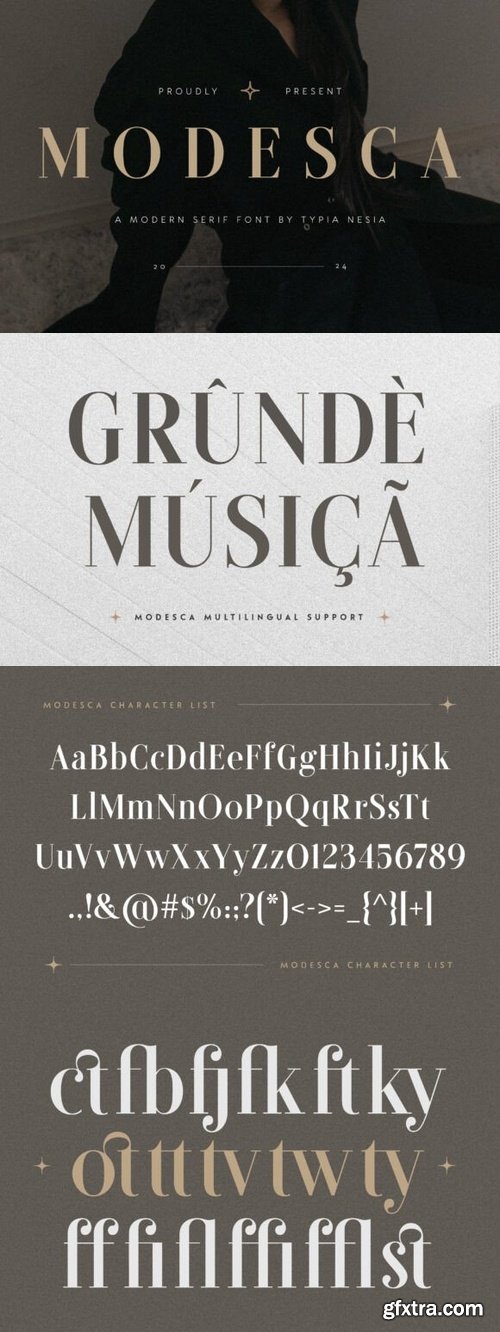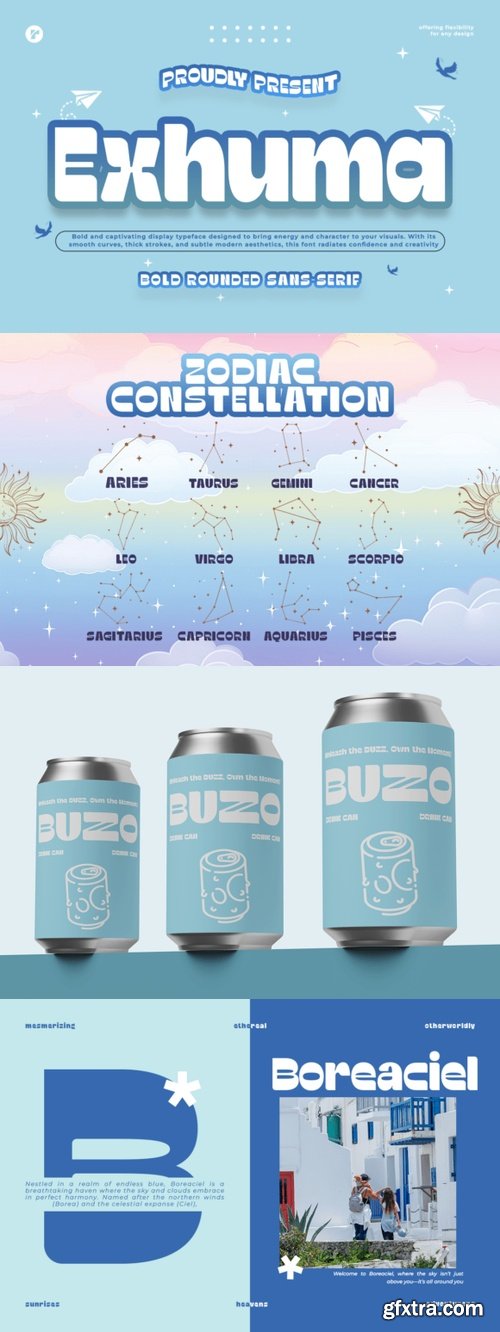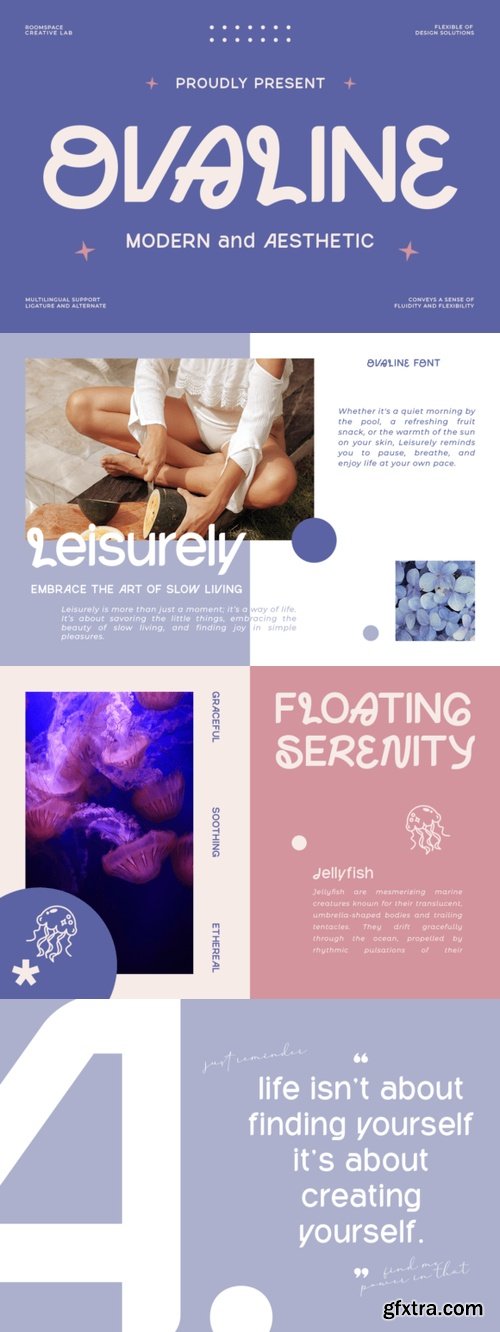
- Modesca is a Modern Luxury Serif Font designed to bring elegance and luxury to your projects. With its sleek lines and timeless elegance, Modesca is perfect for conveying a sense of luxury and modernity in any design, such as luxury branding, editorial layouts, high-end packaging, logo design, wedding invitations, chic social media graphics, advertising campaigns, posters, and anymore. Comes with a complete set of uppercase and lowercase letters, punctuation, numerals, and features elegant ligatures and customizable alternates to enhance creativity. With multilingual support, Modesca caters to global audiences, making it perfect for international projects. Designed for creatives and professionals who seek a luxury serif font with a modern edge, Modesca delivers unmatched elegance and functionality. It’s the perfect choice for designs that need to make a modern and luxurious statement.
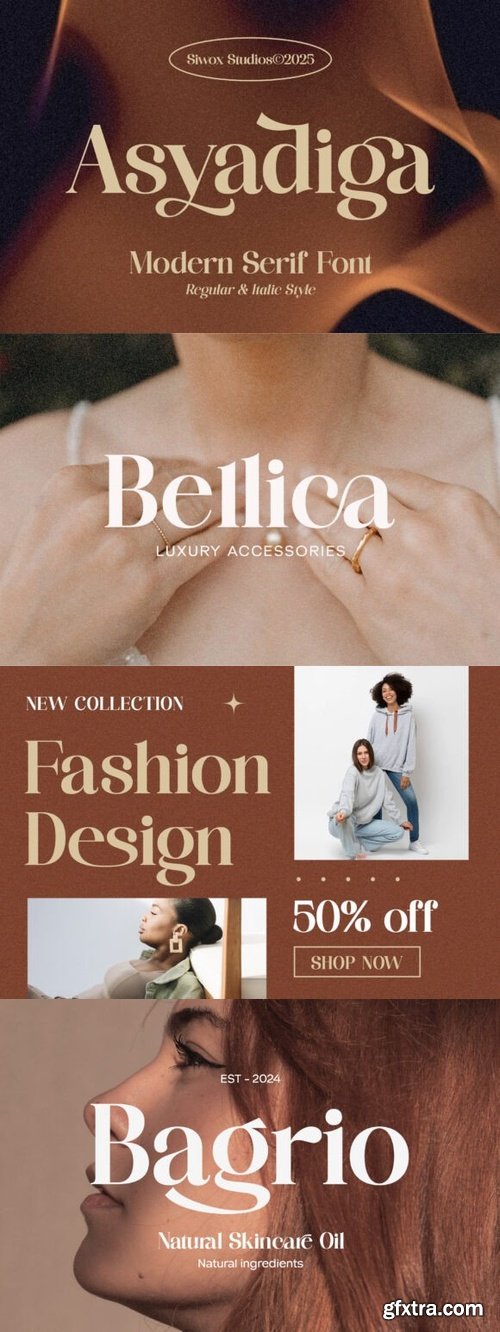
- Asyadiga is a Serif typeface with ligatures and alternates. This font has two styles, regular and italic. Asyadiga is the right choice for those of you who want a clean, modern, minimalist, elegant, and beautiful design style. Suitable for almost all graphic designs such as logos, branding materials, business cards, gift cards, t-shirts, covers, thumbnails, prints, posters, photography, quotes, and so on.
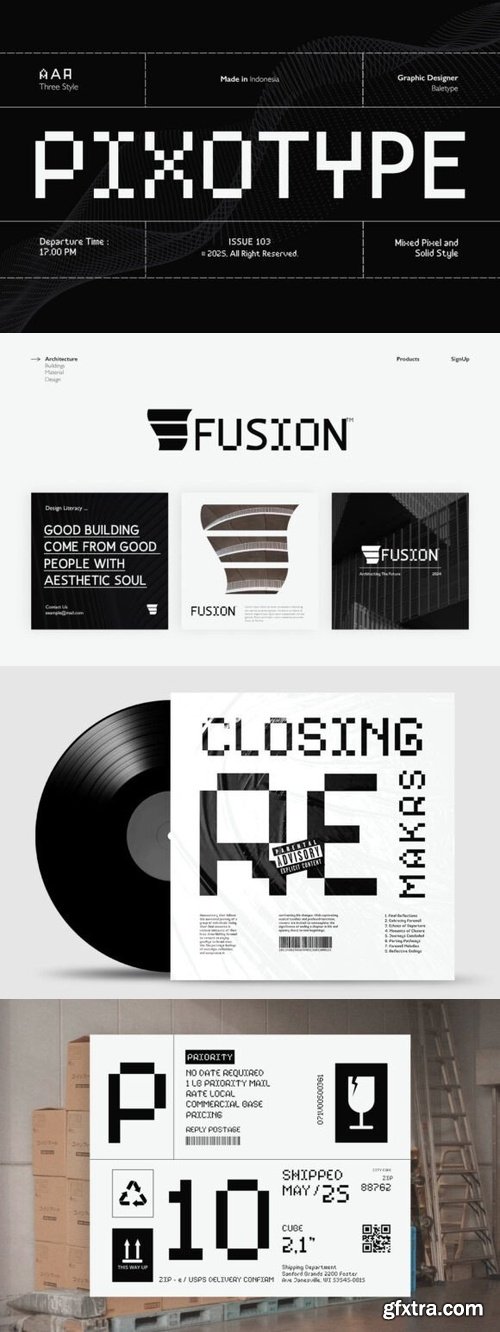
- Pixotype is a pixel sans with solid style as alternates. You can use this font for any purposes such as game, hi-tech poster, logotype, or even quotes. Including two stylish alternates set each uppercase characters that you combine to make your designs more trendy and stunning. This font also support multi language.
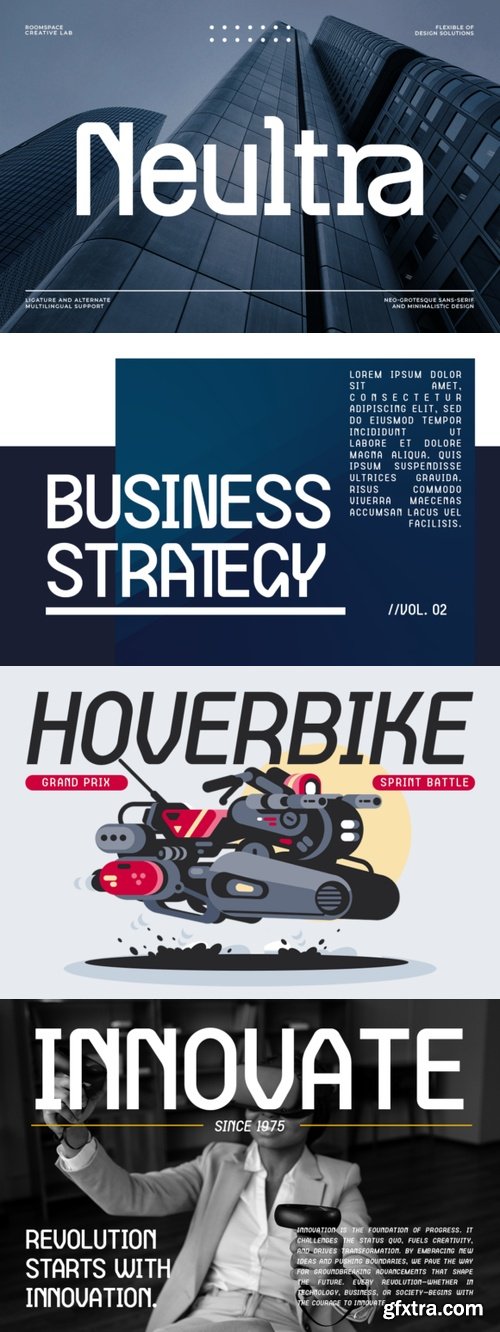
- Neultra is a sleek and modern sans-serif typeface that blends futuristic aesthetics with a subtle touch of flexibility. Its rounded edges soften the rigid structure, creating a perfect balance between precision and approachability.
- Designed for designers, businesses, and creatives who seek a clean yet unique typographic style, Neultra stands out with its minimalistic yet forward-thinking design. Whether for branding, web interfaces, editorial layouts, or high-tech projects, this font elevates your work with a contemporary and versatile touch.
- Neultra adapts effortlessly to various design needs. Let your creativity flow with this future-ready typeface.
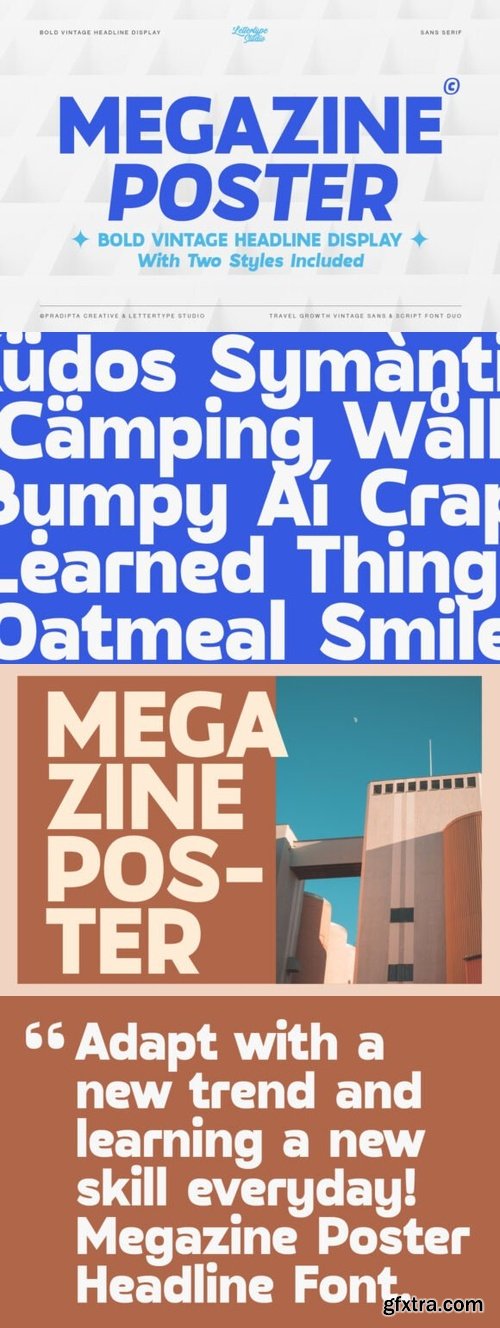
- Megazine Poster is a bold vintage sans serif font inspired by the 60s and 70s graphic design. Designed for readability and versatility, enhances its contemporary appeal with a bold and strong personality and a very good fit in headline design.
- These fonts are crafted to provide vintage, elegant, bold, strong, and versatile options for designers, marketers, and creatives. Whether you’re working on branding, web design, packaging, or editorial layouts, these top-performing fonts offer exceptional readability and unique aesthetic appeal. Discover fonts that elevate your creative projects and keep your designs on-trend.
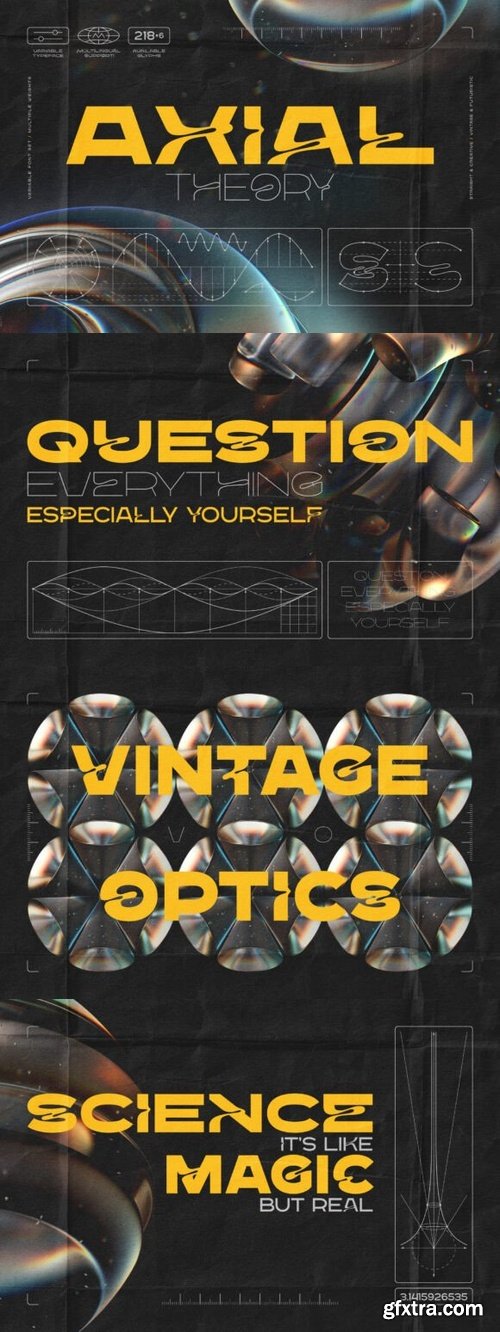
- Introducing Axial Theory, a retrofuturistic font set. This type family includes three weights, three width variations, and an infinitely flexible variable font. Its nicely curved letterforms bring an original vibe to your text.
- Each letter has both a simple and a creative version, which you can access by typing uppercase or lowercase letters. It also offers multilingual support — check out the screenshot to see the available characters.
- Exhuma is a bold rounded sans-serif typeface that blends modern aesthetics with playful energy. Designed with smooth curves and thick strokes, this font is perfect for branding, logos, headlines, posters, and any design project that needs a fresh and friendly look. Its soft yet confident character makes it versatile for both digital and print designs.
- This font is ideal for graphic designers, crafters, and business owners looking for a font that radiates creativity and approachability. Whether you're designing kids’ products, social media graphics, packaging, or merchandise, Exhuma will bring a fun, modern, and professional touch to your visuals.
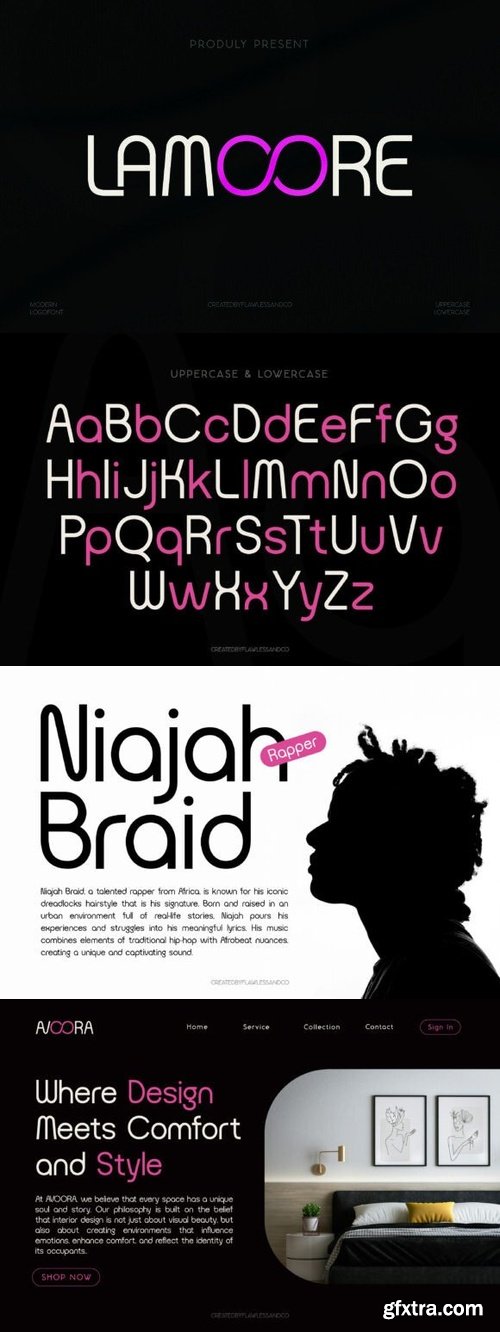
- Lamoore is a clean and modern sans serif font designed to bring simplicity and sophistication to your projects. With its sleek letterforms and balanced proportions, this font is perfect for branding, logos, website headers, editorial layouts, and social media graphics. Its minimalistic style makes it versatile and easy to pair with other typefaces, making it a great choice for both professional and creative designs.
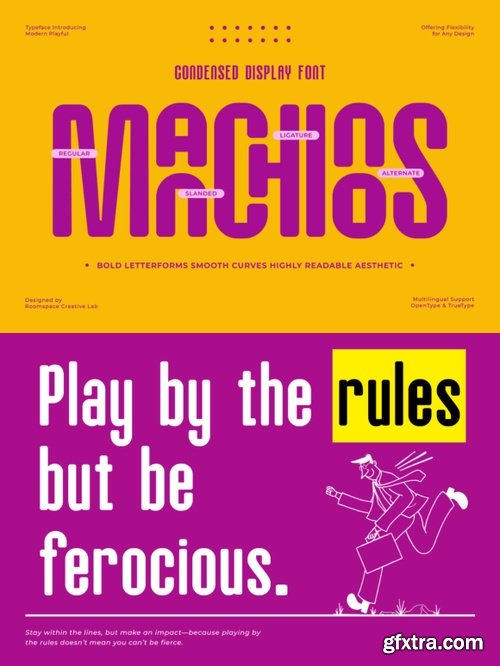
- Picky Fredy is an edgy and cool sans serif font, suitable for any projects such as: logos, branding projects, homeware designs, product packaging, mugs, quotes, posters, shopping bags, t-shirts, book covers, name card, invitation cards, greeting cards, label, photography, watermark, special events, and all your other lovely projects that need a Display Typeface taste.